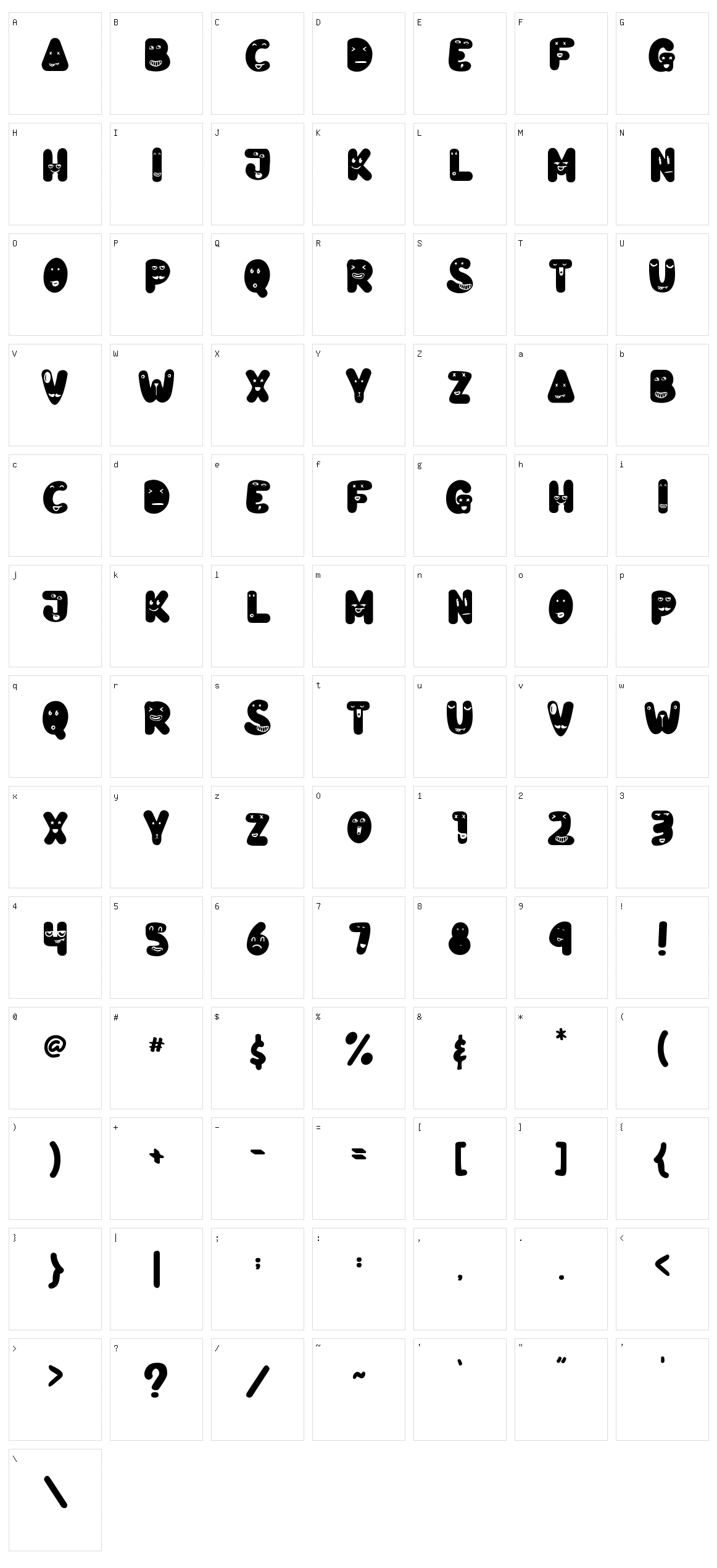
The free font Petite Smile is carefully designed by Tigadestd, showcasing a thoughtful balance of creativity and usability and falls under the Cartoon font style. When you download the ZIP file, it contains only 161.67 KB of font files, making it lightweight and quick to download. Please review the license details below to understand permitted usage and distribution rights. If license information is not available, we recommend using this font for personal projects only or contacting the author directly for commercial usage permissions.